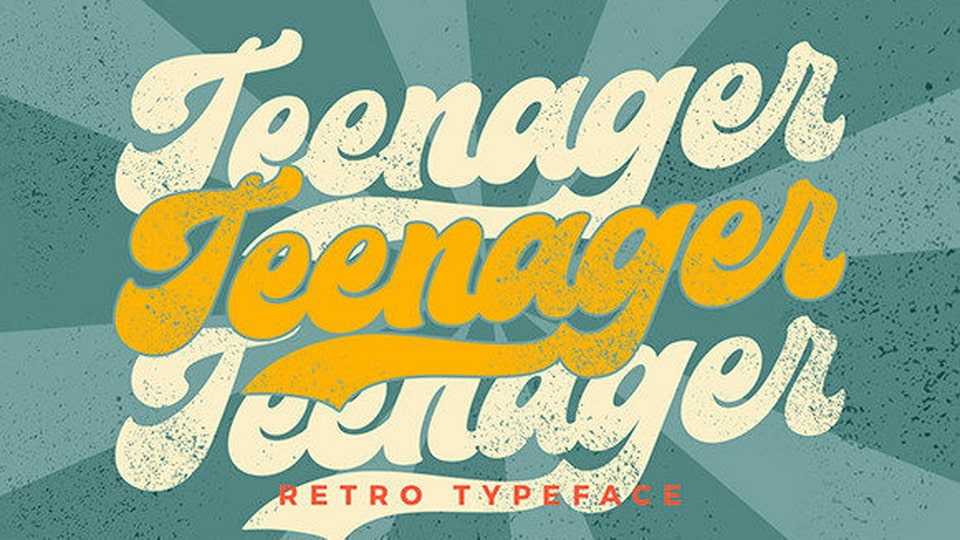
Download Teenager font, a cool, paint brushed and retro styled display typeface. It is imposing and features a uniquely shaped letters, so Teenager font will easily match a wide range of creations that require a distinct touch.
Designer: Topan Sofyan